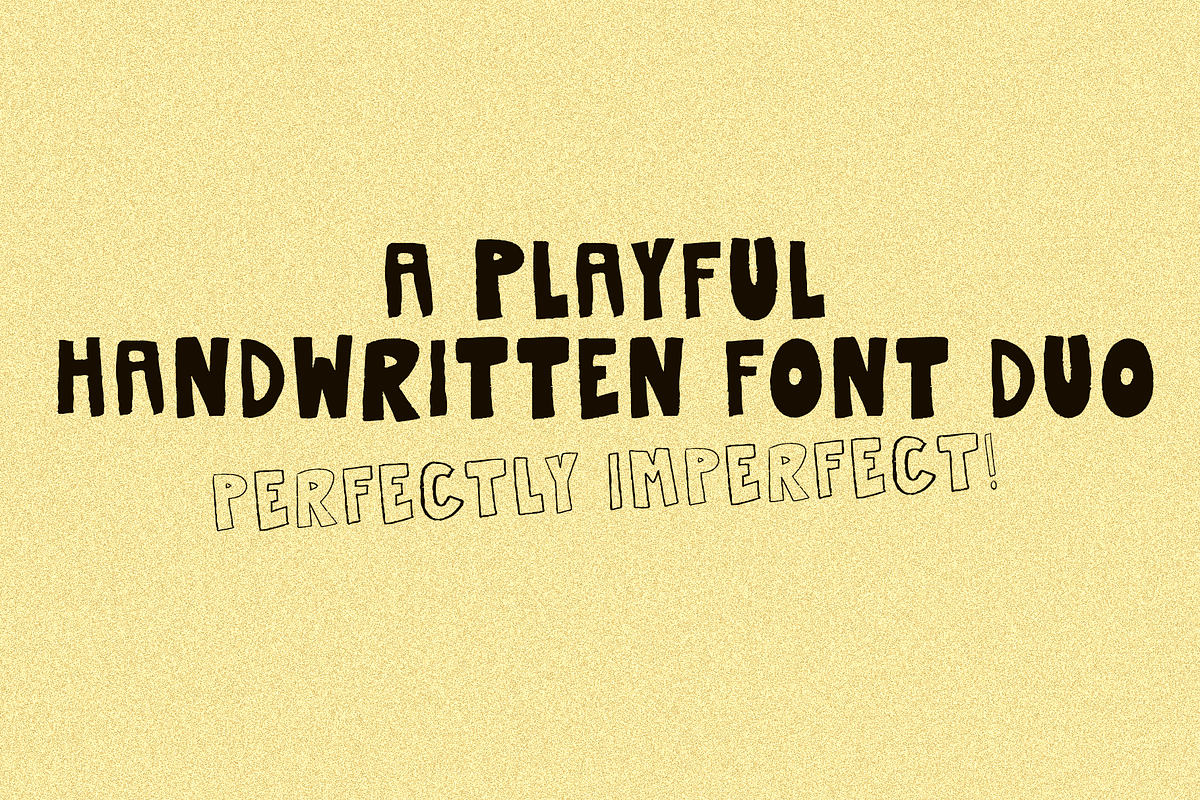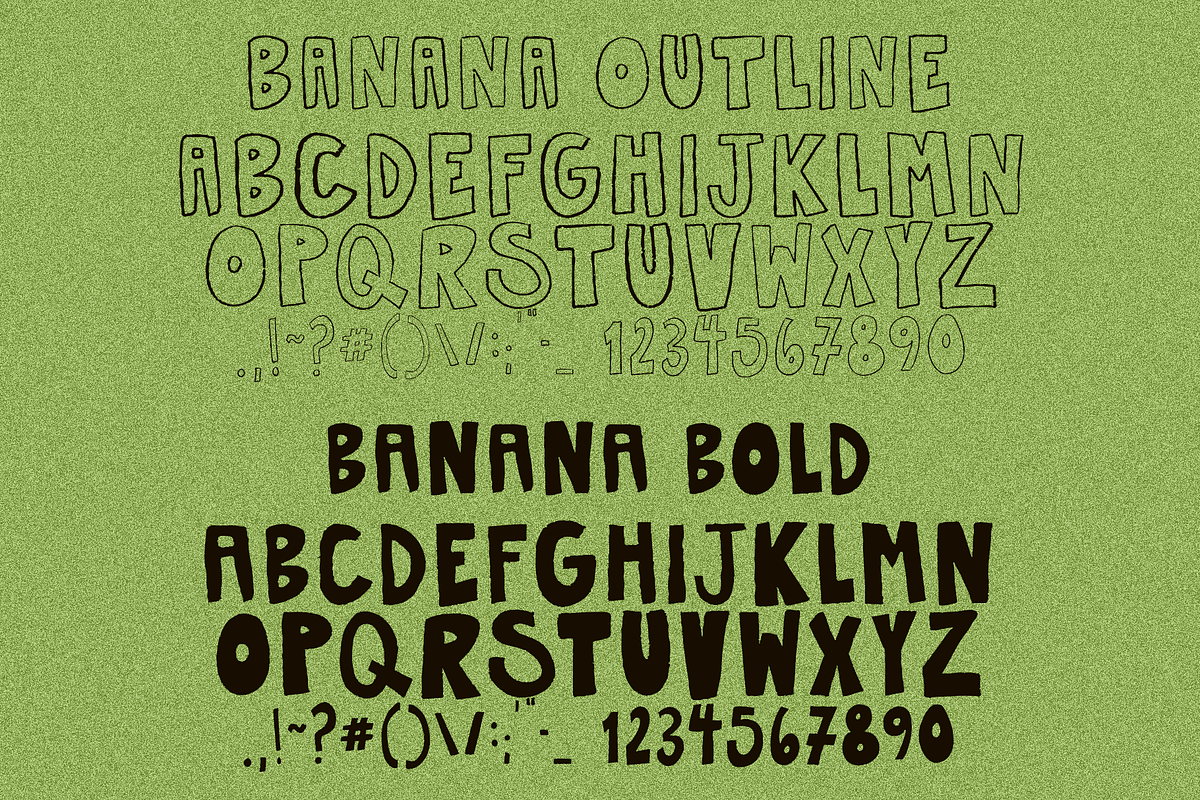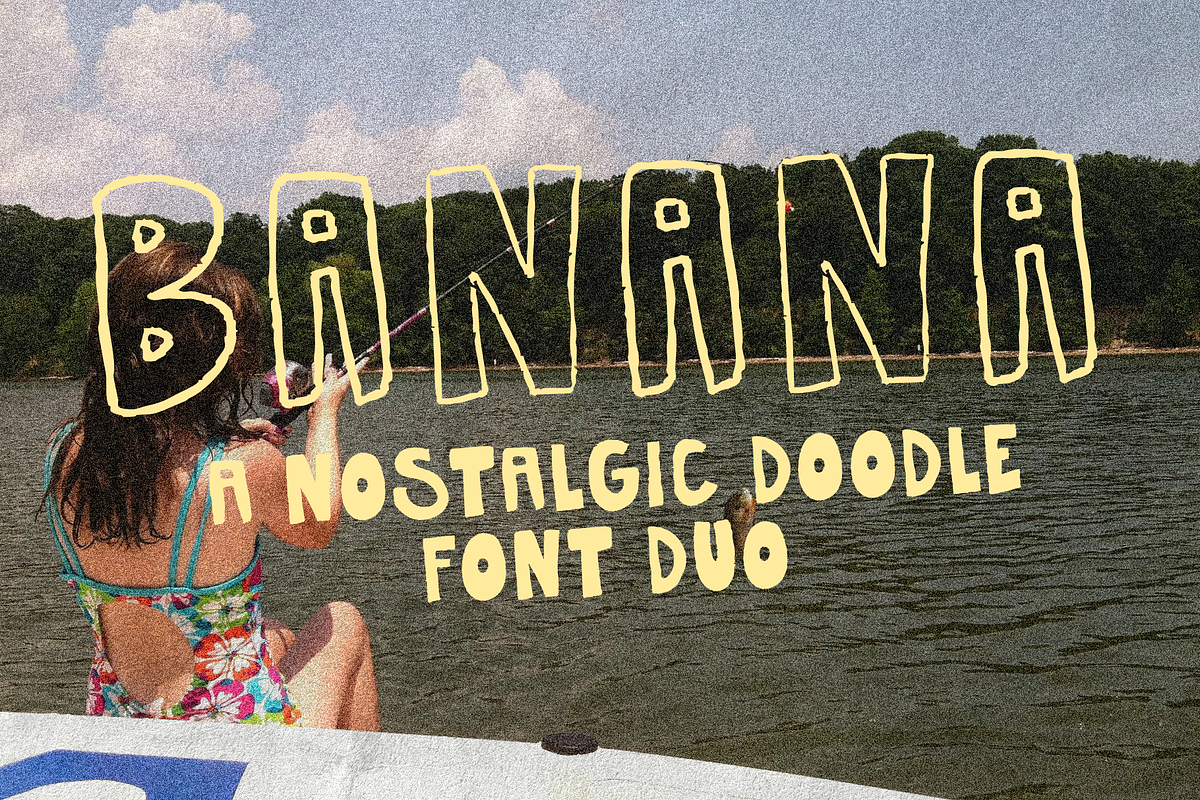
Banana - A Handwritten Font Duo
Say hello to Banana, the quirky, all-caps handwritten font duo that’s here to peel back the ordinary and add some fun to your designs! This playful pair features two unique styles: a bold, chunky version for making a statement and an outlined version for a lighter, more dynamic touch. Together, they’re the perfect combo for creating eye-catching, personality-packed designs.
With its whimsical, imperfect strokes and all-caps charm, Banana is made for projects that call for bold creativity—think logos, social media graphics, posters, merch, and beyond. Whether you use them individually or pair them together, this duo adds a fresh, unexpected twist to any design.
What’s inside:
Bold version: Big, striking, and impossible to ignore. Outlined version: Light, airy, and full of quirky charm. Full set of uppercase letters, numbers, and punctuation. Let Banana bring a playful vibe to your next project—it’s fun, versatile, and guaranteed to make your designs stand out in the best way! 🍌